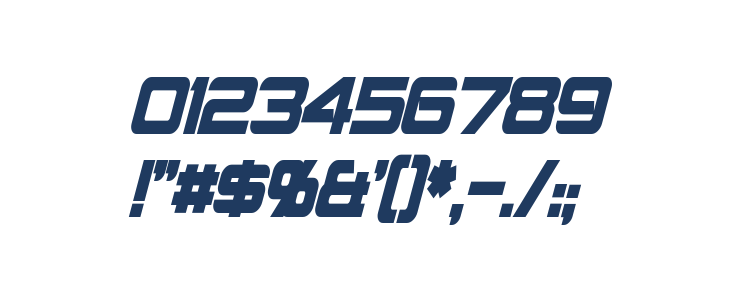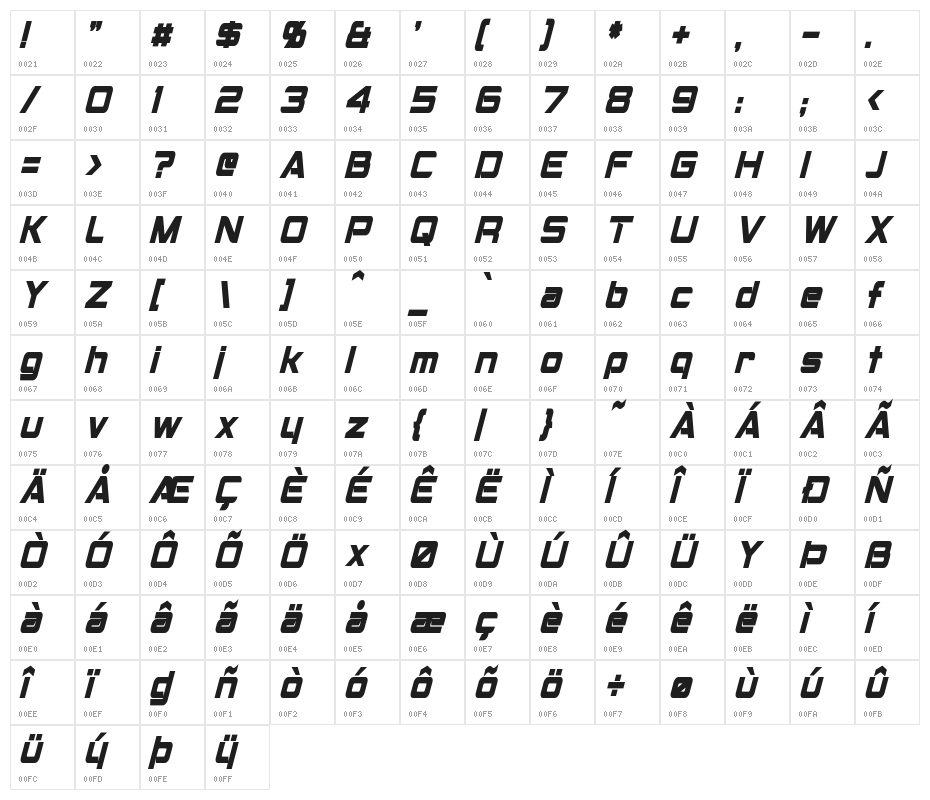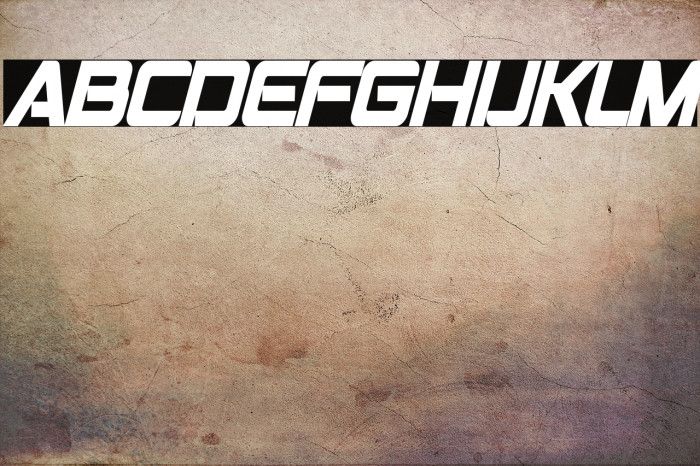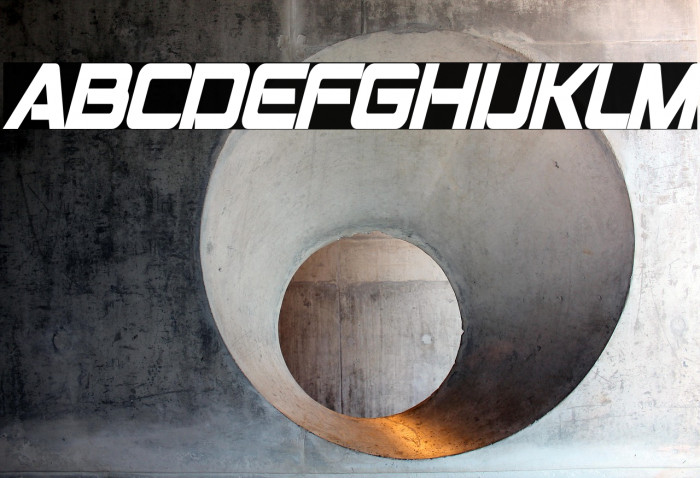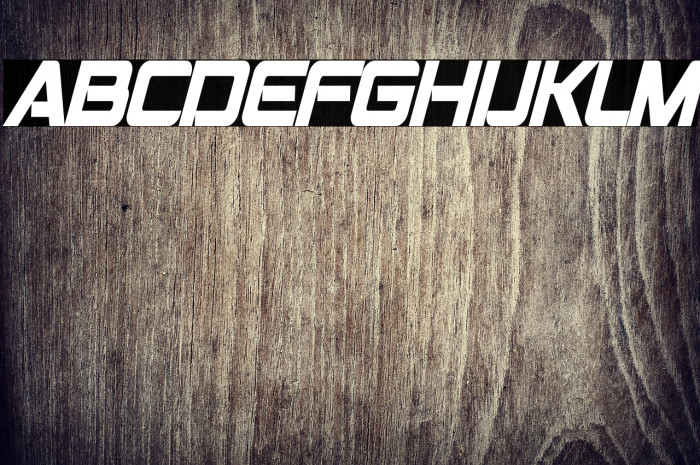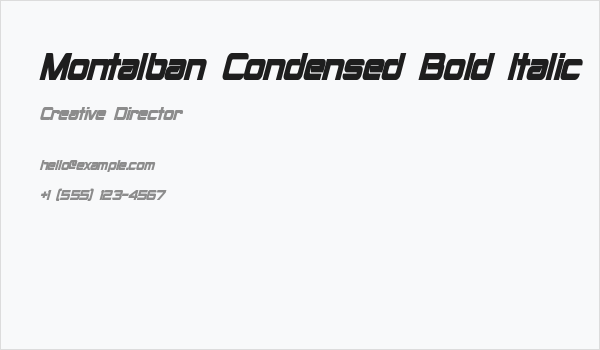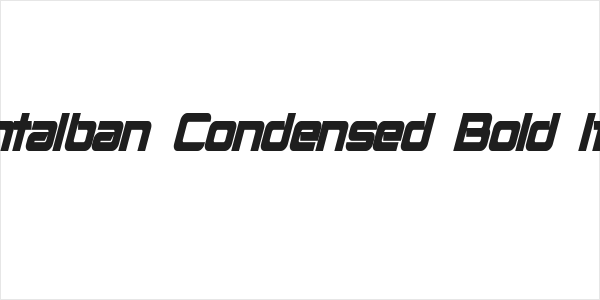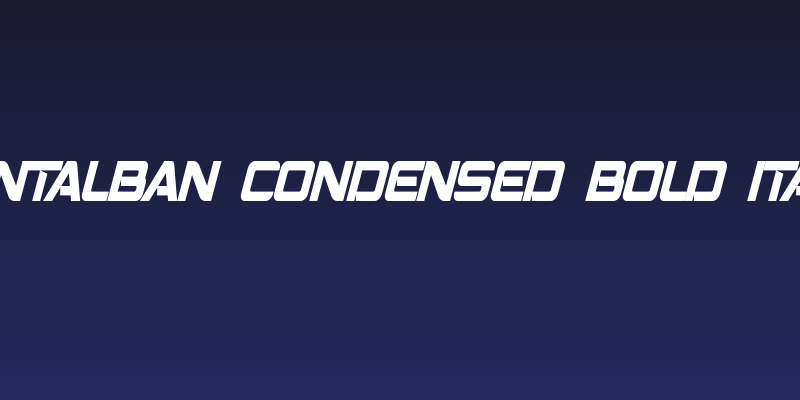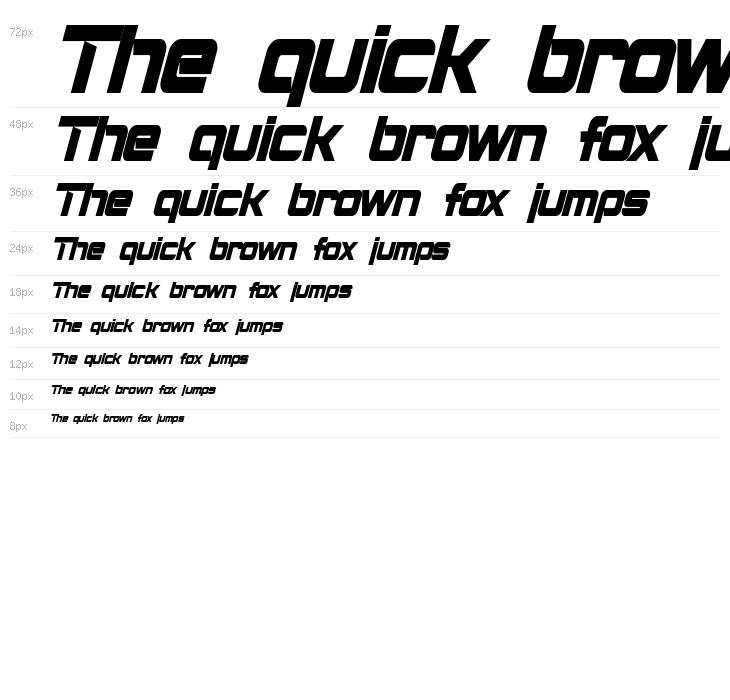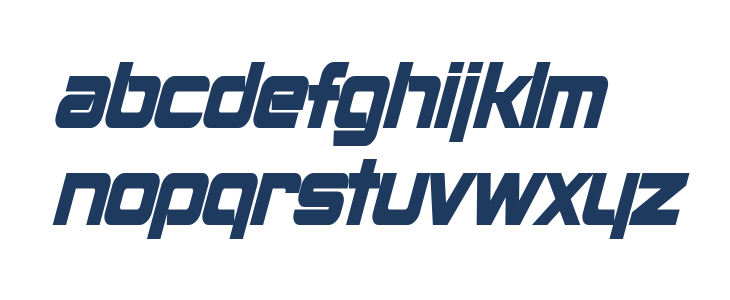
Montalban Condensed Bold Italic Font
Montalban Condensed Bold Italic Description
This font features a bold and italicized style with a condensed width, giving it a dynamic and modern appearance. The characters are sharply angled, providing a sense of motion and speed. The uppercase and lowercase letters maintain a consistent slant, enhancing the italic effect. The numbers and special characters follow the same design principles, ensuring uniformity across all glyphs. The bold weight and condensed form make it ideal for impactful headlines and attention-grabbing designs. The overall style is sleek and contemporary, suitable for projects that require a strong visual presence.
Proposed ProjectsIdeal for sports branding, automotive advertisements, dynamic posters, and modern web design.